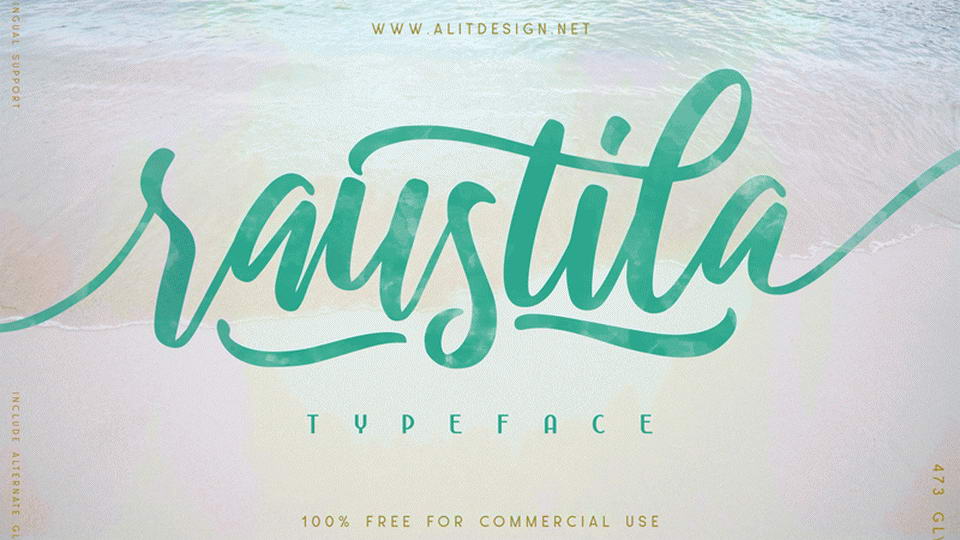
Raustila Font
Raustila is a free hand lettered brush script font with vintage look. It comes with uppercase and lowercase letters, numbers, symbols and also supports multilanguage. This gorgeous and curvaceous style makes this font suitable for a logos, badges, headlines, fashion and apparel, vintage and handcrafted designs and other creatives.
• Name: Raustila
• Author: Alit Design